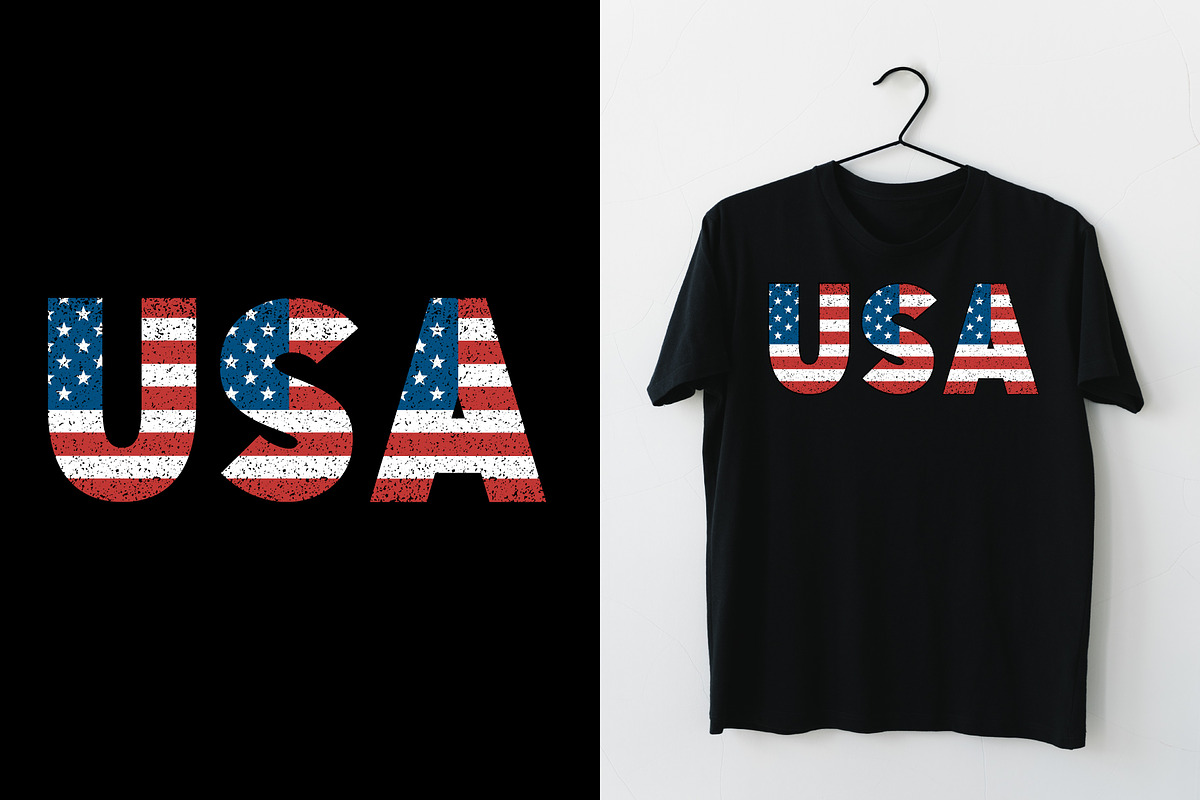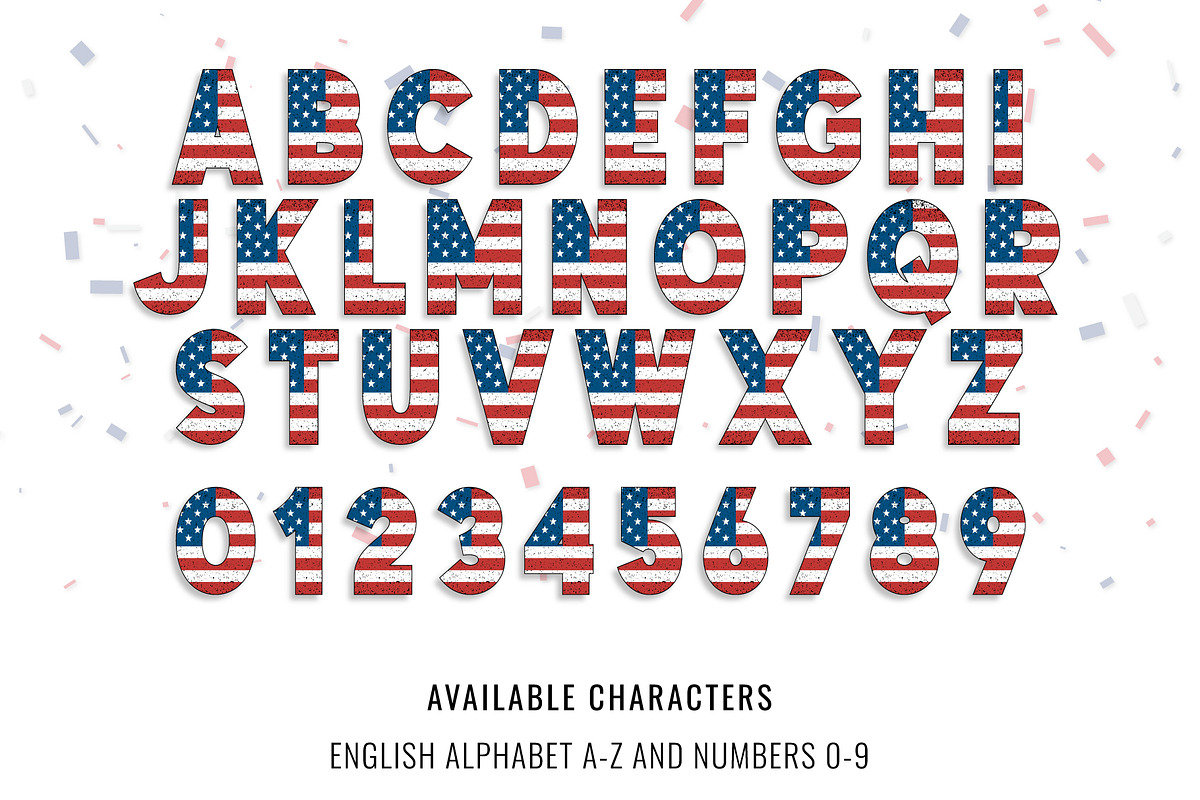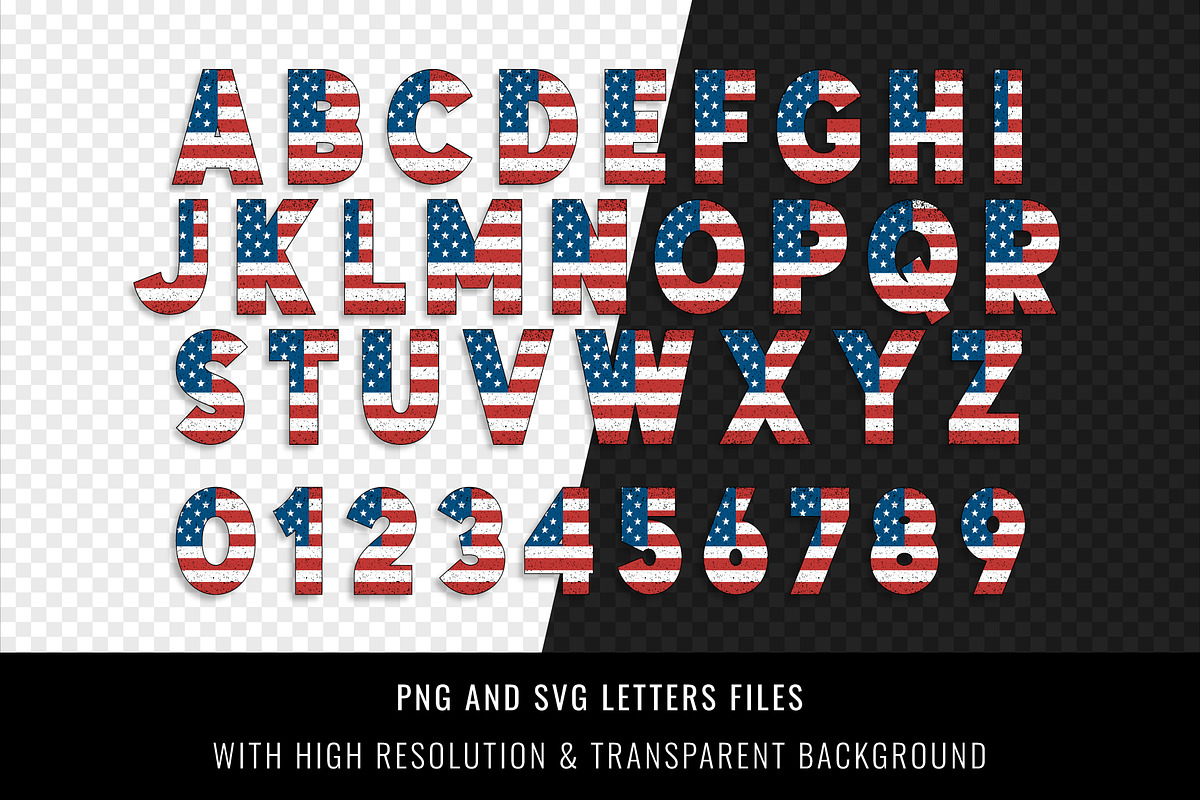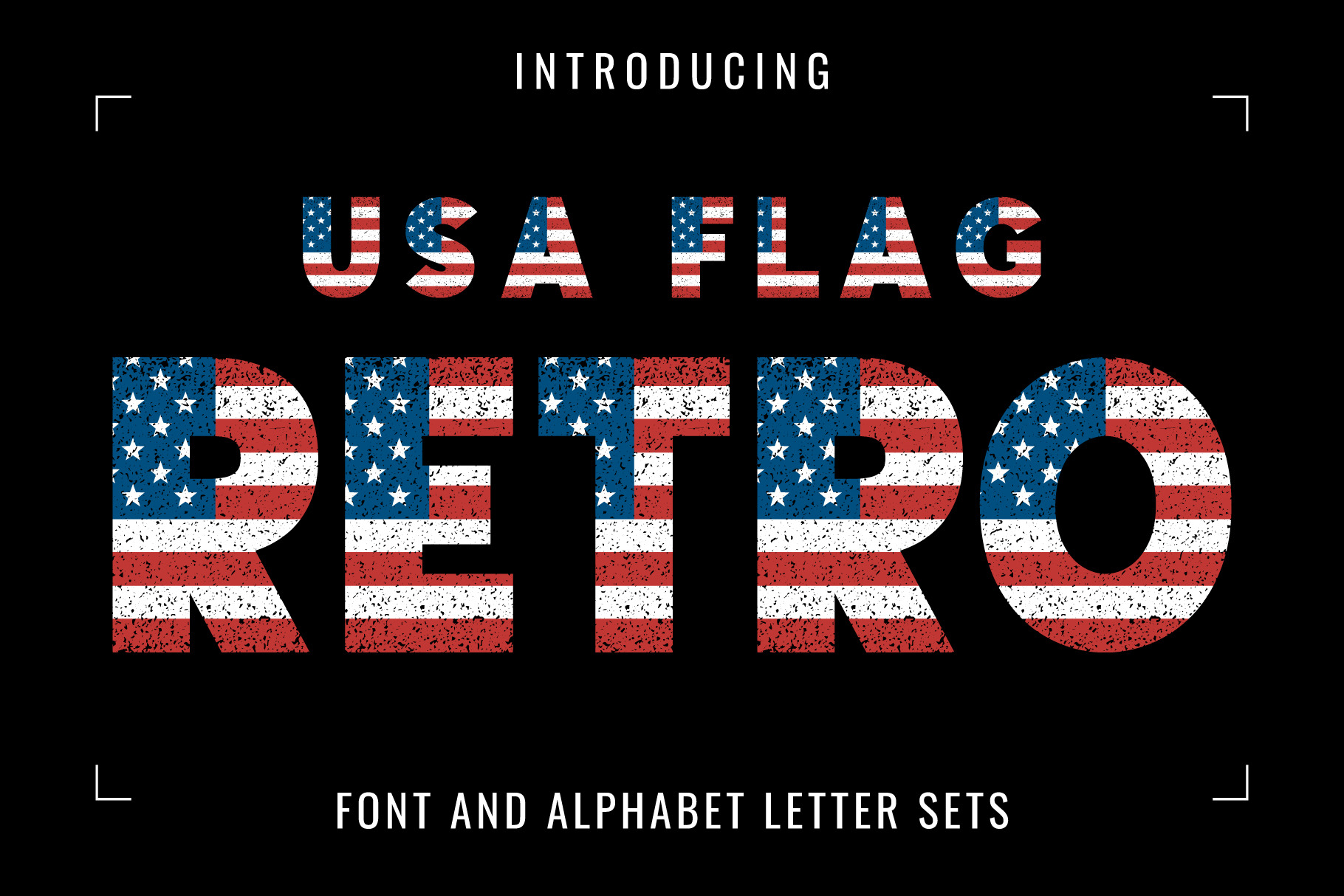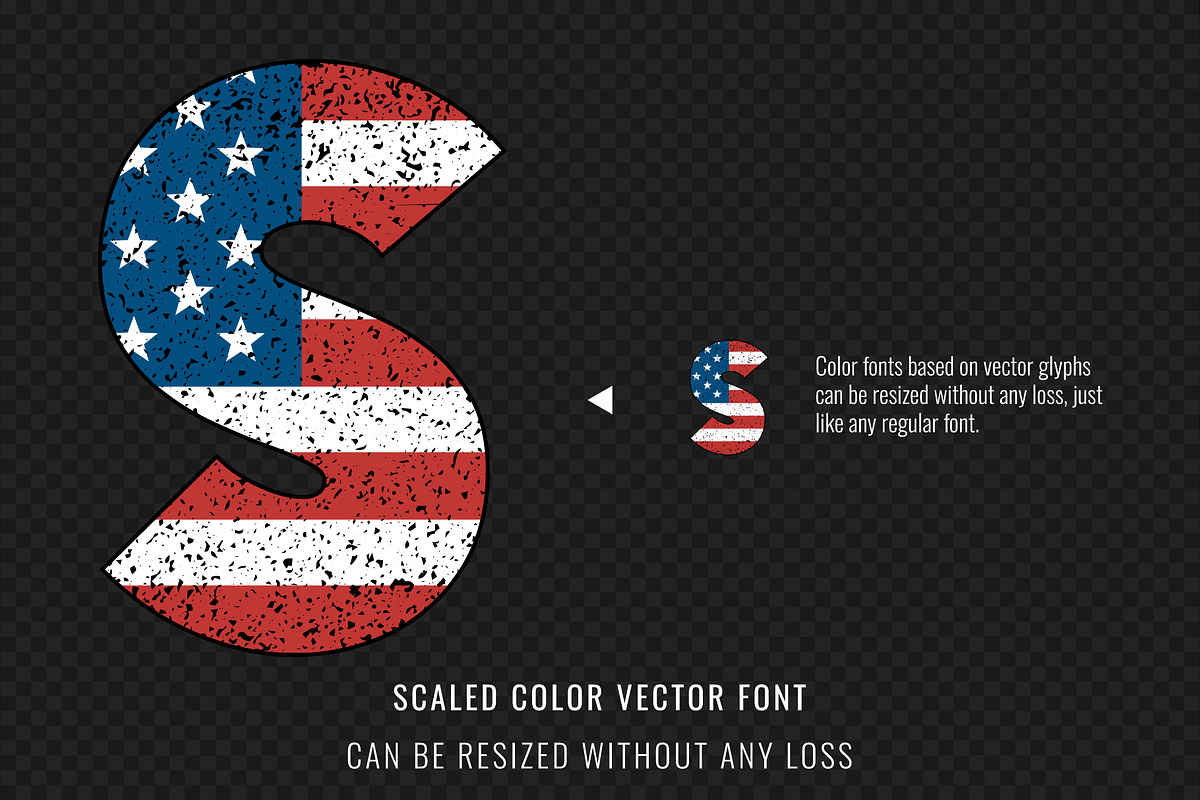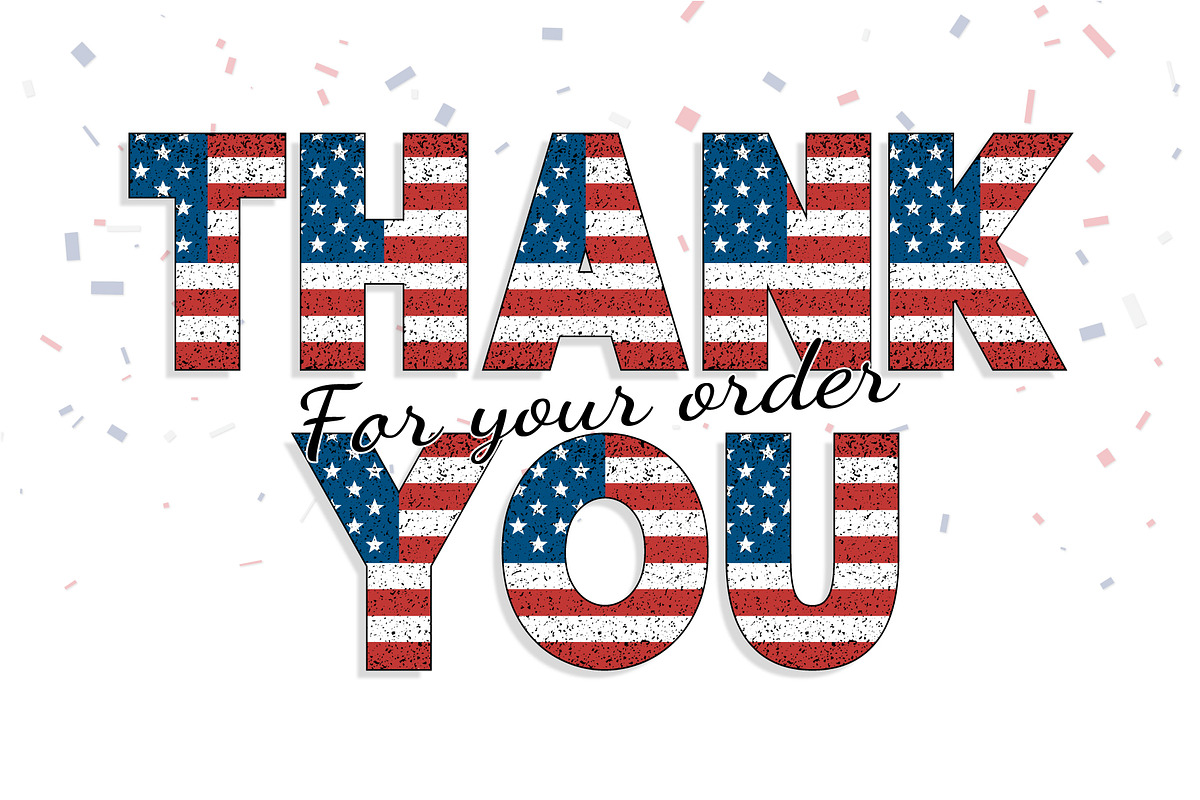
USA Flag Retro Font
Introducing “USA Flag Retro Font” – a Distressed Grunge Retro American Flag font style. It’s the perfect font for Memorial Day-themed or 4th of July-themed projects. It works great for creating cool designs that scream for attention.
- This OpenType-SVG (or Color Font) Font is made from color vector graphics that can be resized without any loss, just like any regular font. The resolution of an OTF file is roughly 730 px in height.
- This entire font is capitalized.
- Only the English language is available.
- Letters: A B C D E F G H I J K L M N O P Q R S T U V W X Y Z.
- Numbers: 0 1 2 3 4 5 6 7 8 9.
- Excluding punctuation.